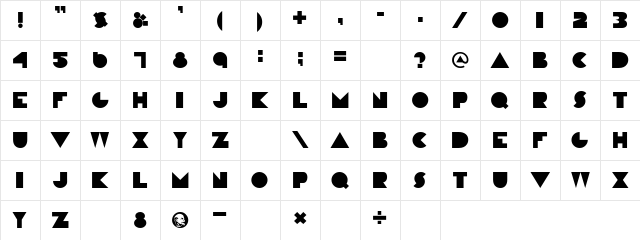
P22 Constructivist Block Regular
Foundry: P22 type foundry
Designer: Richard Kegler
Design Context for P22 Constructivist Block
P22 Constructivist Block is a composed and adaptable typeface that performs quietly and consistently across a wide range of design contexts.